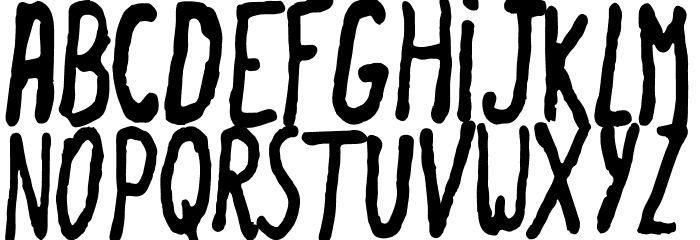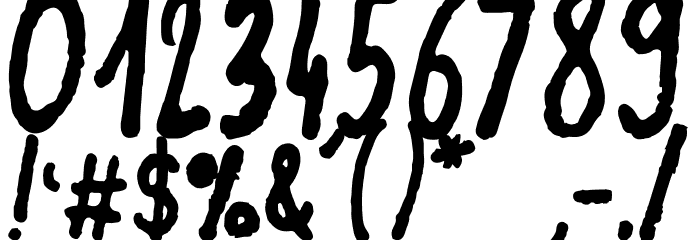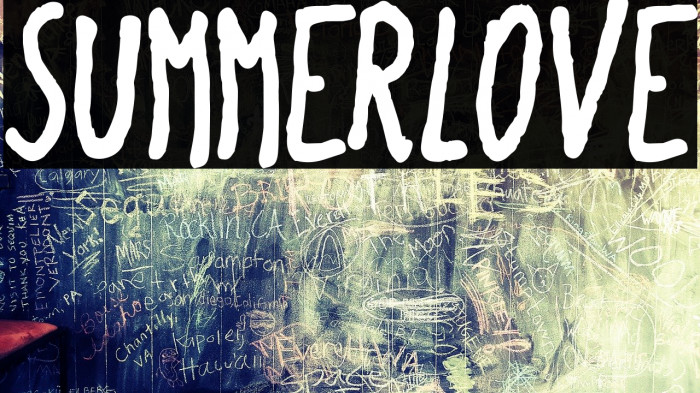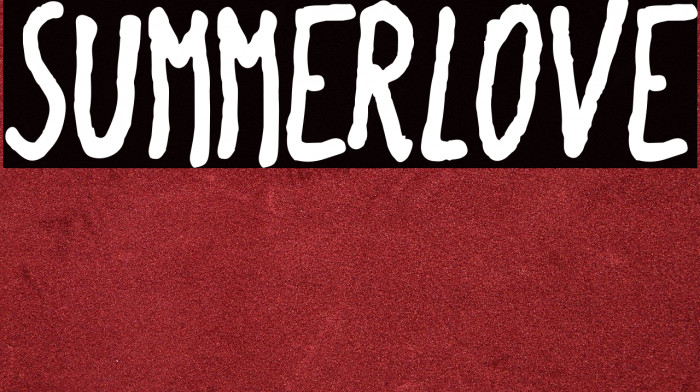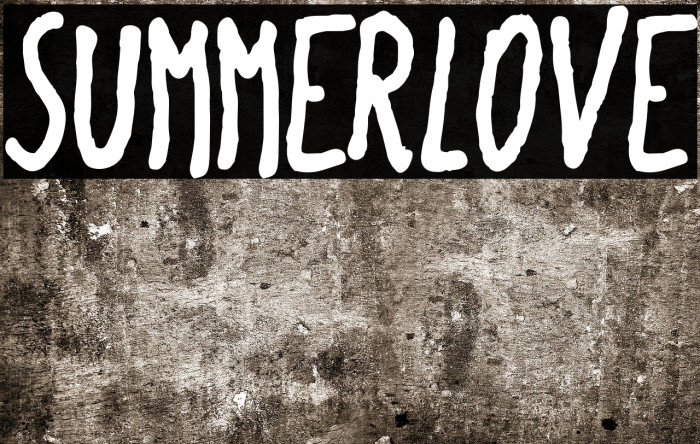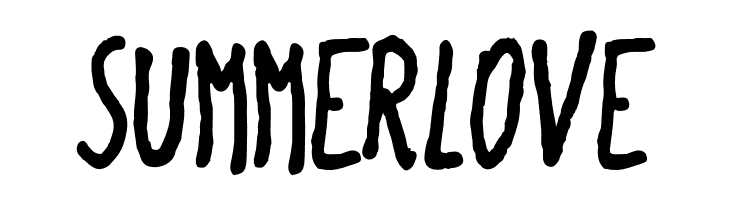
SummerLove Font
This font exhibits a playful and informal style, characterized by its hand-drawn appearance. The letters are uneven and slightly irregular, giving it a casual and artistic feel. The strokes are bold and thick, with a consistent weight throughout the characters. The uppercase and lowercase letters maintain a cohesive look, while the numbers and special characters complement the overall design. This font's organic and spontaneous nature makes it ideal for projects that require a personal touch.
A playful, hand-drawn font with bold, irregular strokes.
- Proposed Projects: Ideal for greeting cards, children's books, posters, and creative branding.